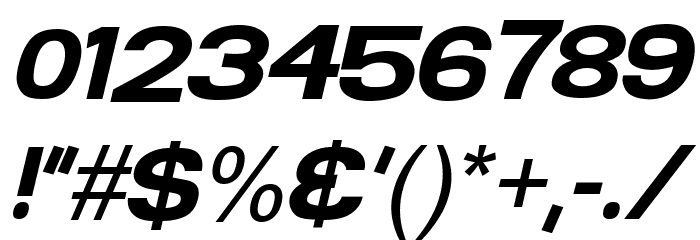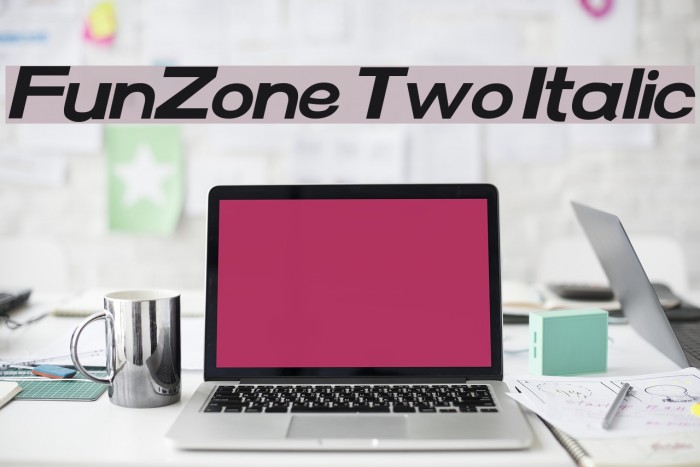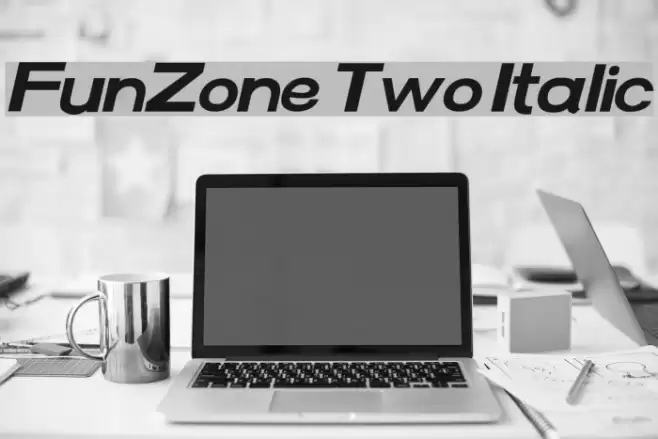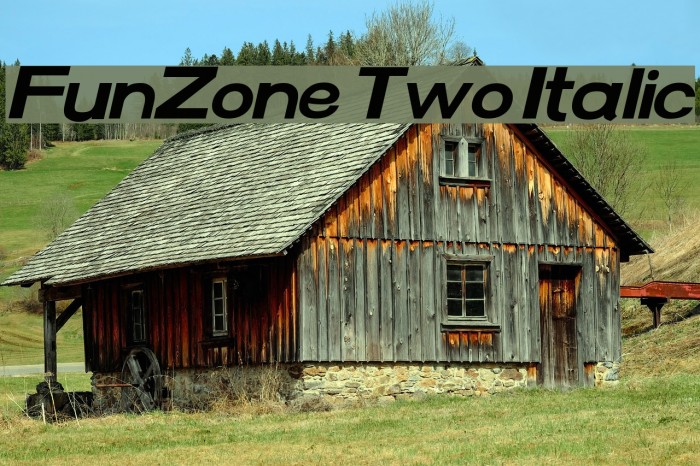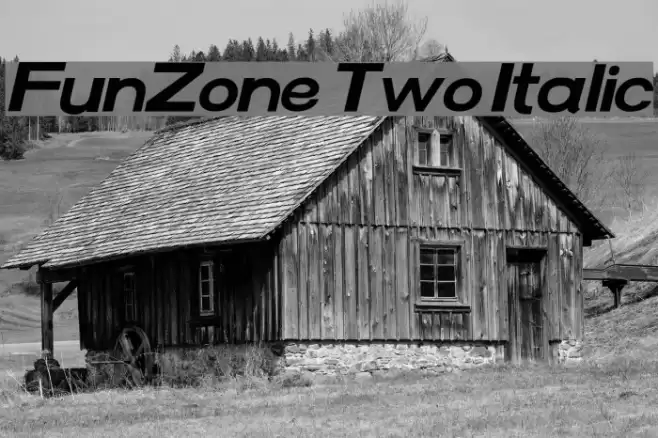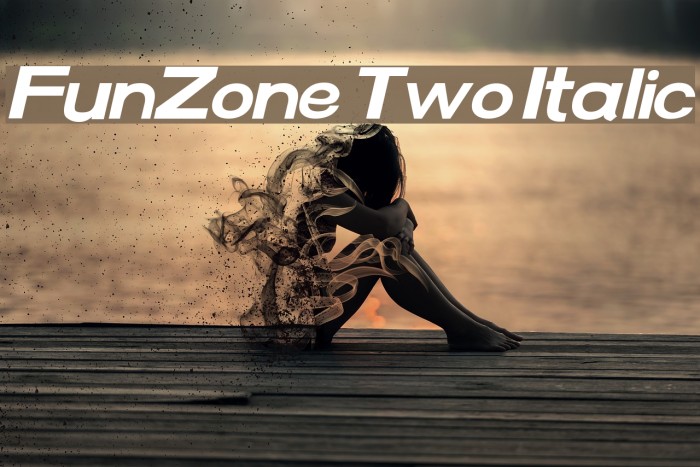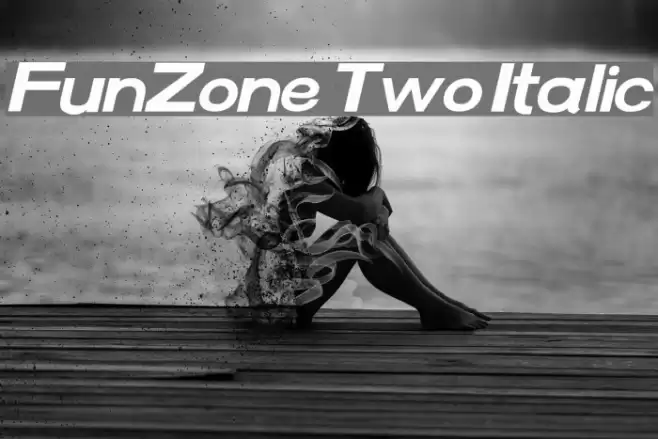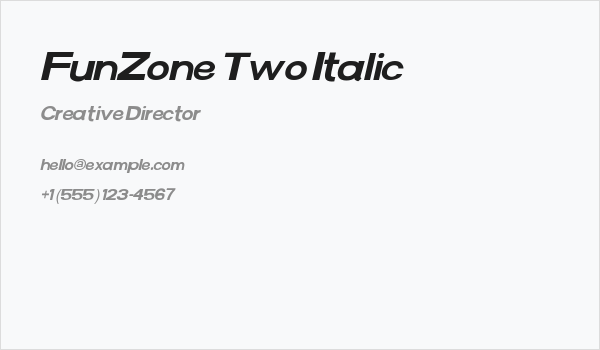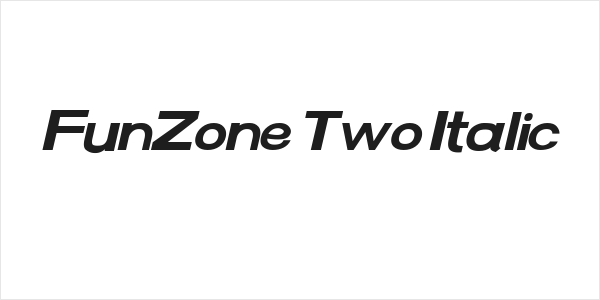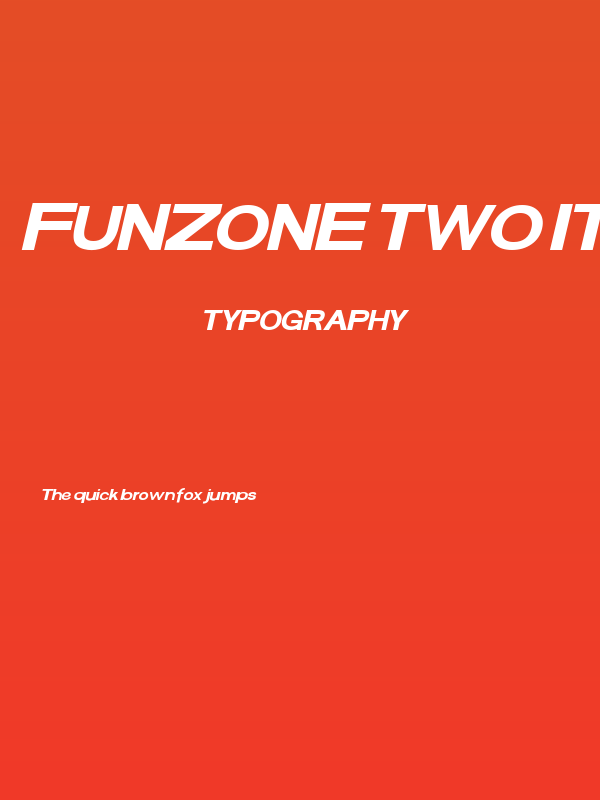
FunZone Two Italic Font
FunZone Two Italic Description
This font features a sleek, italicized design with a modern and dynamic appearance. The characters are slightly slanted, giving a sense of motion and energy. The strokes are consistent in thickness, providing a uniform look across all characters. The uppercase letters are bold and impactful, while the lowercase letters maintain a smooth and rounded form. Numbers and special characters are designed to match the overall style, ensuring coherence throughout. The font's clean lines and contemporary style make it suitable for a variety of applications.
| Use Case | Headlines, Logos, Advertising |
| Proposed Projects | Ideal for branding, advertising, sports-related designs, and dynamic presentations. |